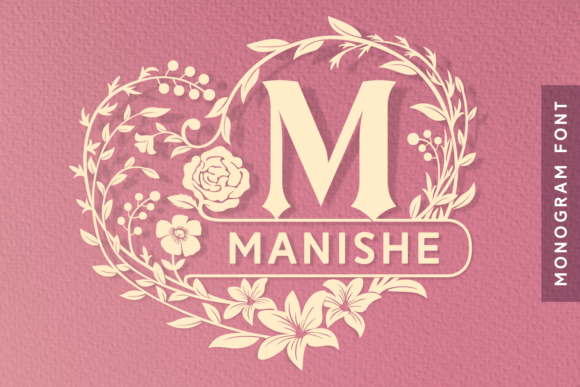
Immerse yourself in the world of Manishe, a decorative font family that will leave you breathless. This exquisite creation by Situjuh is a testament to the art of detailed design, sure to elevate your projects to new heights of elegance and sophistication.
Unleash your inner artist and explore the endless possibilities that await you with Manishe. Picture the most stunning wedding invitations, where every letter dances across the page with grace and charm. Envision captivating stationary art that will transport you to a realm of beauty and inspiration. Create eye-catching social media posts that will make your audience stop scrolling and admire your artistry.
With Manishe, the ordinary becomes extraordinary. Its intricate details and ravishing style will transform your words into works of art, leaving a lasting impression on all who behold them. Whether you're a seasoned designer or just starting your creative journey, Manishe is the perfect companion for your next project.